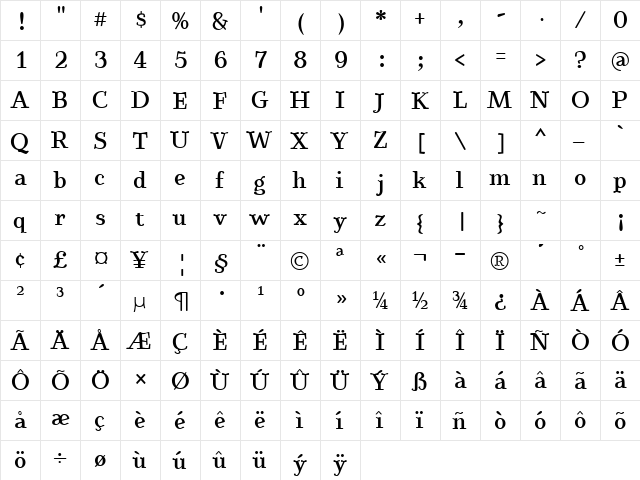
BetterEuroika Bold Font Preview
BetterEuroika Bold
Design Context for BetterEuroika Typeface
BetterEuroika is a composed and adaptable typeface that performs quietly and consistently across a wide range of design contexts. Its bold stroke weight gives it real presence on the page.